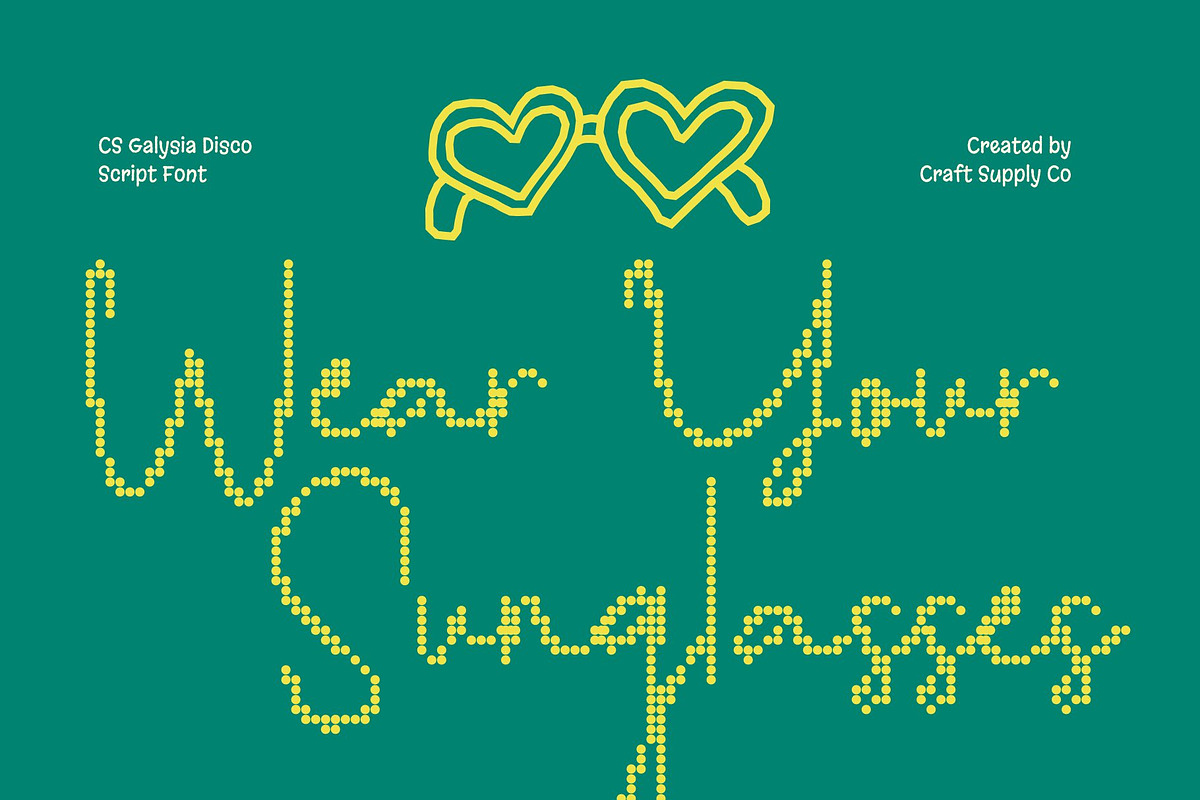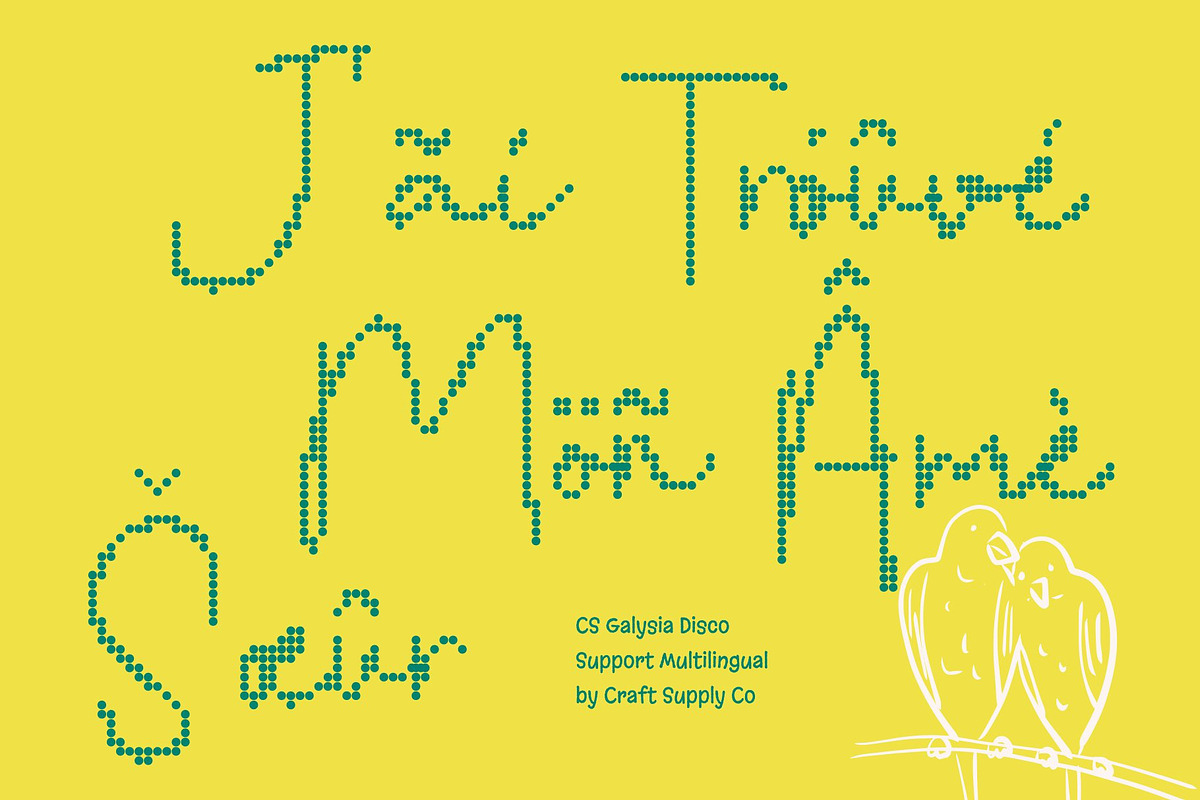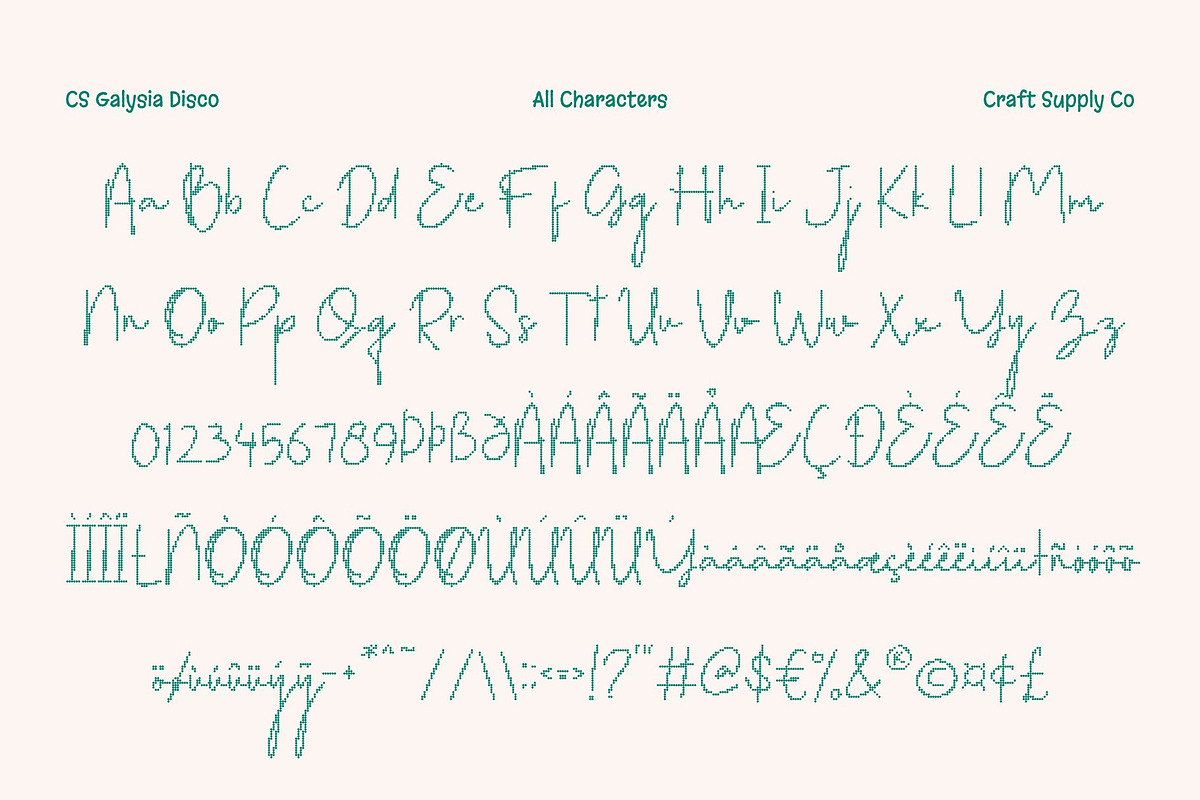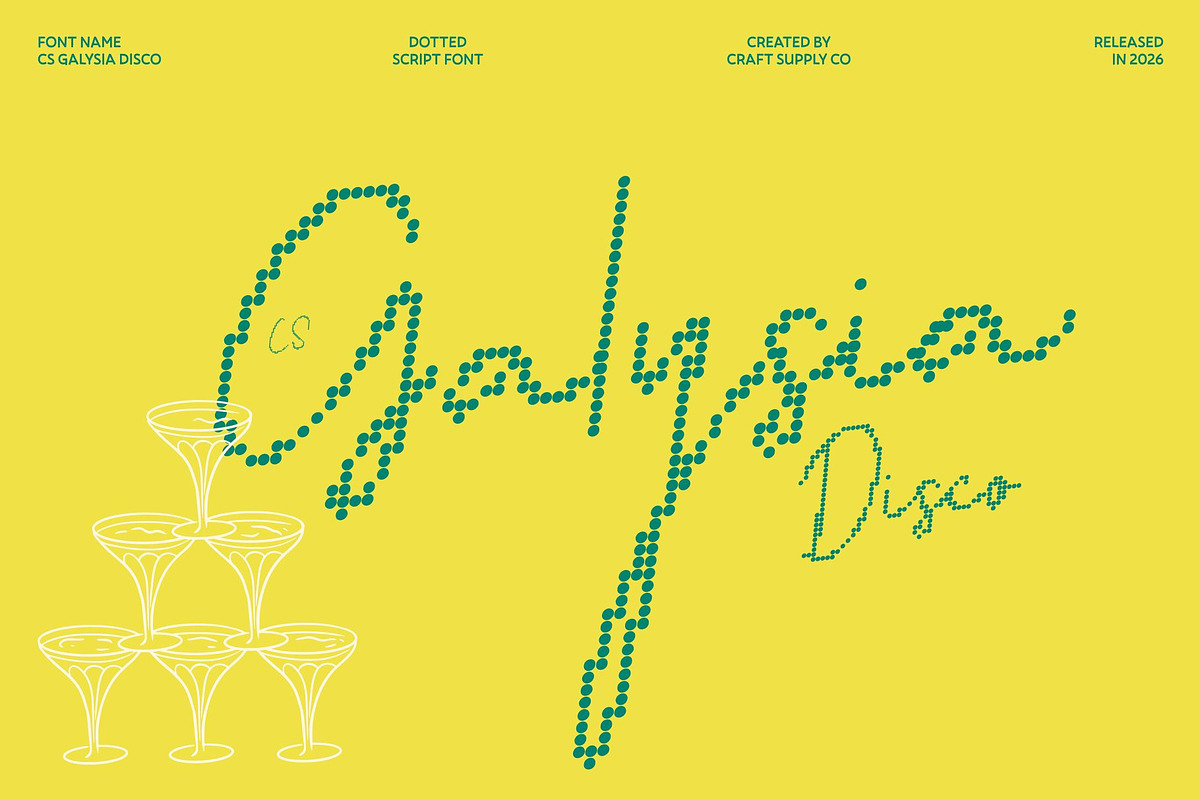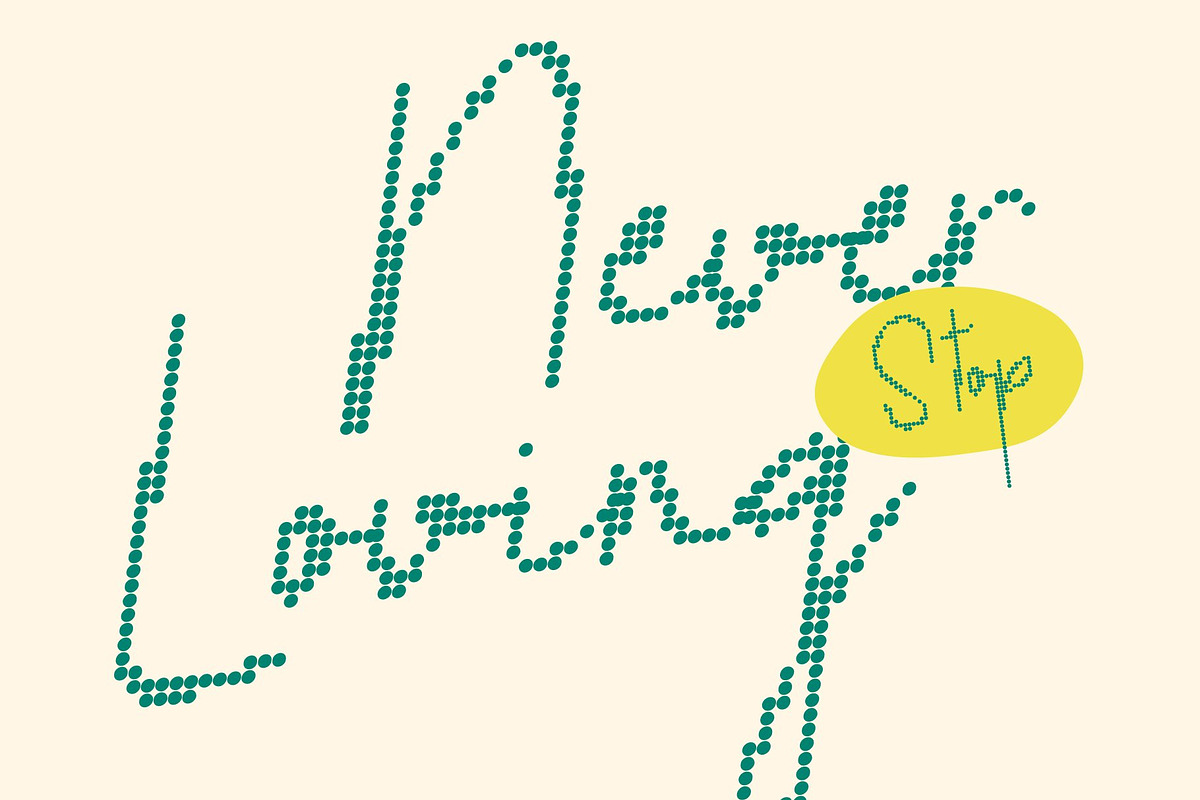
CS Galysia Disco
CS Galysia Disco – Romantic Script with Sparkling Mediterranean Glamour
Flowing Beauty with Disco Radiance This captures the warmth and elegance of Mediterranean-inspired handwriting, now illuminated with a dazzling disco twist. Its flowing strokes transform into radiant dotted lines, as if written in shimmering lights along a vibrant coastal promenade. Each curve flows gracefully while glowing with festive brilliance, blending romance with celebration.
Romantic Spirit with Luminous Sophistication The script’s graceful rhythm and delicate connections remain refined and expressive, enhanced by a sparkling dotted construction that adds movement and glamour. This fusion of soft romance and radiant energy creates a unique aesthetic artistic, charming, and visually captivating.
Perfect for Elegant yet Festive Designs This font shines in wedding invitations, luxury branding, fashion packaging, and stylish event promotions. Its romantic character adds intimacy and authenticity, while the disco-inspired glow introduces a joyful, eye-catching atmosphere perfect for modern celebrations.
Versatile with Timeless Charm From logos and stationery to editorial layouts and social media campaigns, this font adapts beautifully across creative formats. Its flowing elegance paired with sparkling detail makes it ideal for designers who want to combine heartfelt expression with vibrant visual flair.